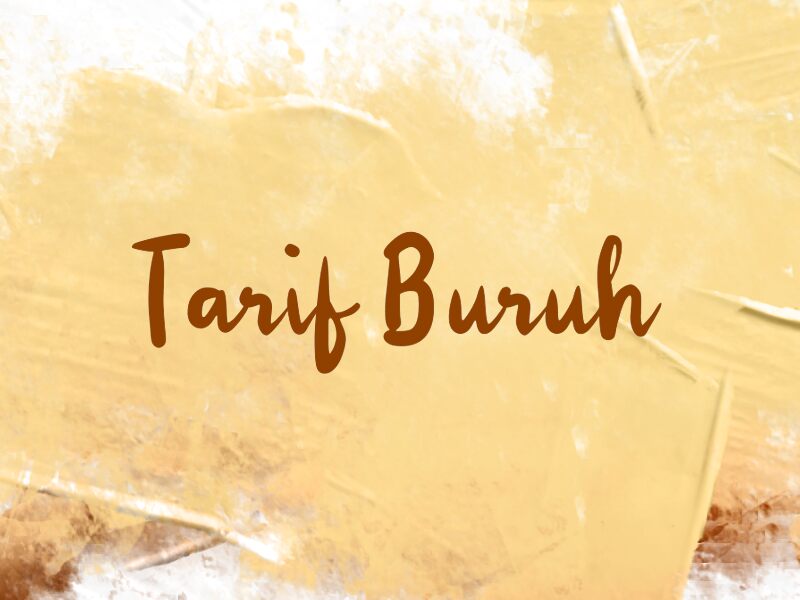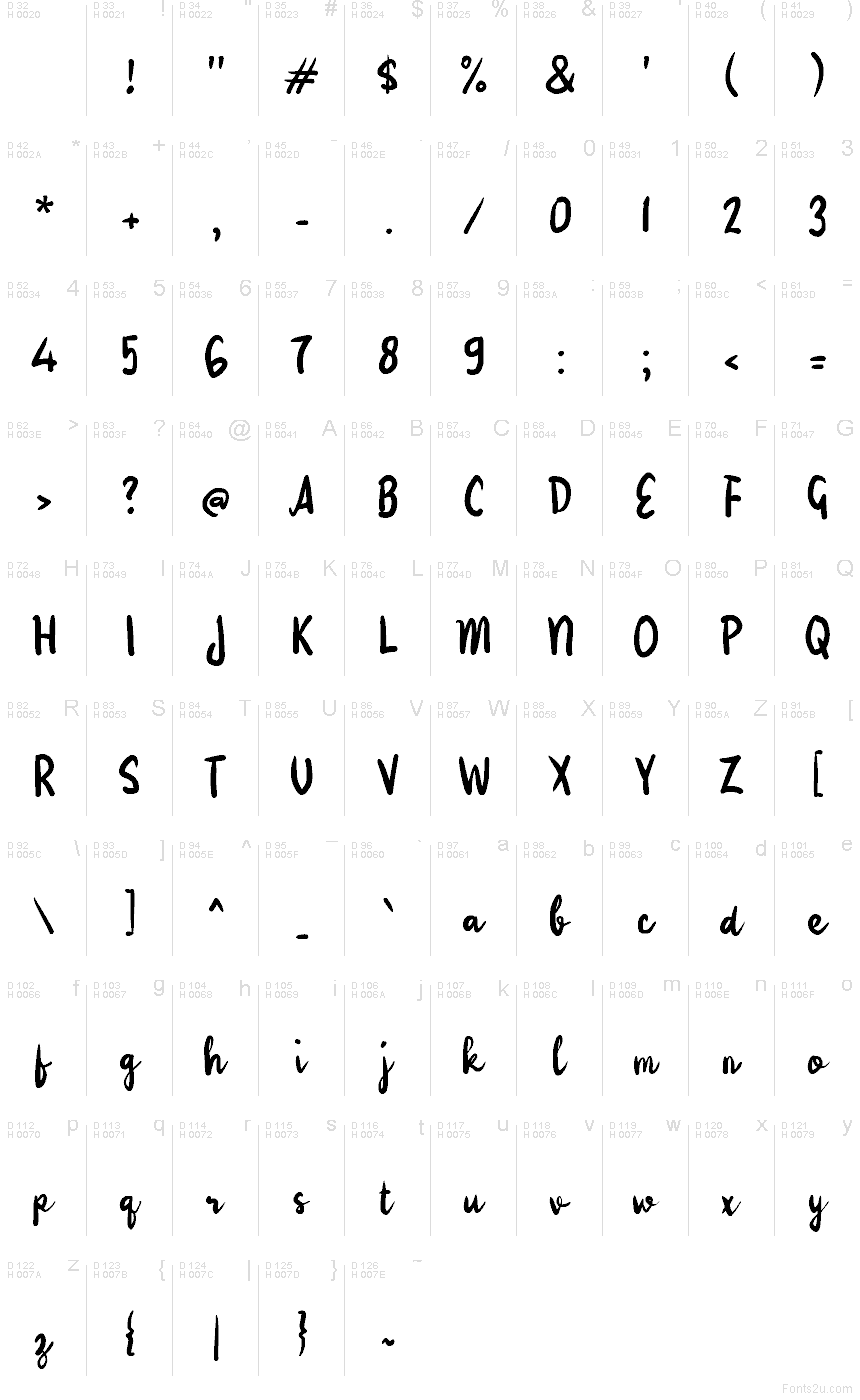
Tarif Buruh
Tarif Buruh by Wep is a free brush script with the loose, painted snap of hand-lettered signage. The letters mix broad, inky strokes with quick tapered joins, and the tall final forms give the line a slightly improvised rhythm that feels made with a real brush rather than drawn to behave.
It fits poster headlines, cafe branding, music cover lines, social media title cards, and packaging that wants a fast human mark. As a free font, Tarif Buruh works best in short phrases, logos, and pull quotes where those swinging strokes and uneven brush pressure can carry the mood without needing much else.